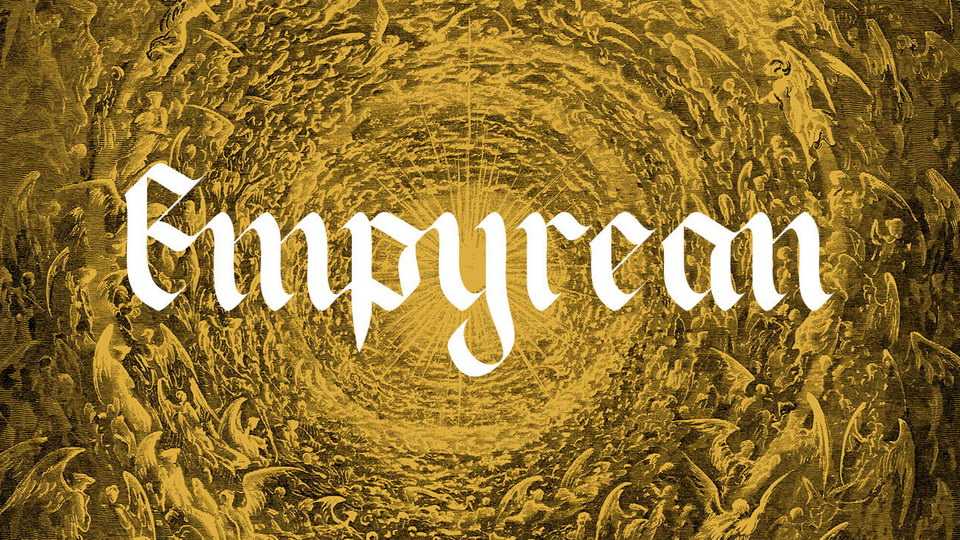
Download Empyrean font, a blackletter script inspired by calligraffiti and Rennaisance-era typography. Empyrean was designed to feel like it belongs to both the 14th and 21st century.
Designer: Leonardo Tanuwijaya